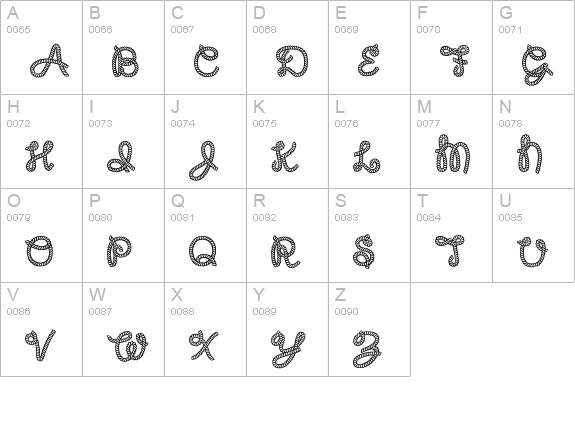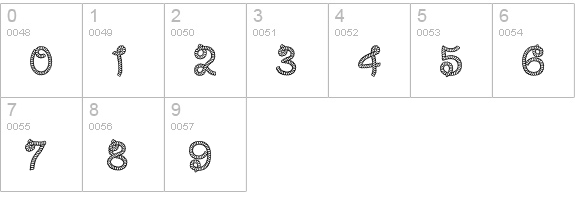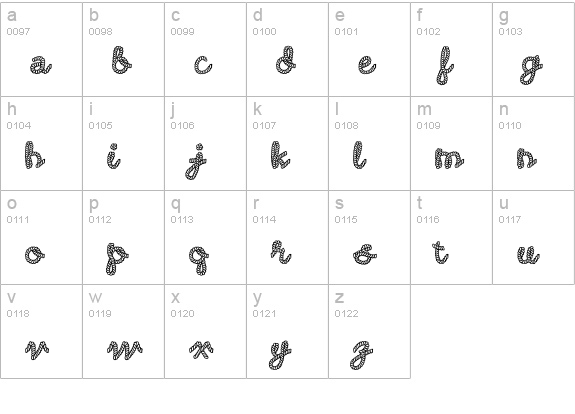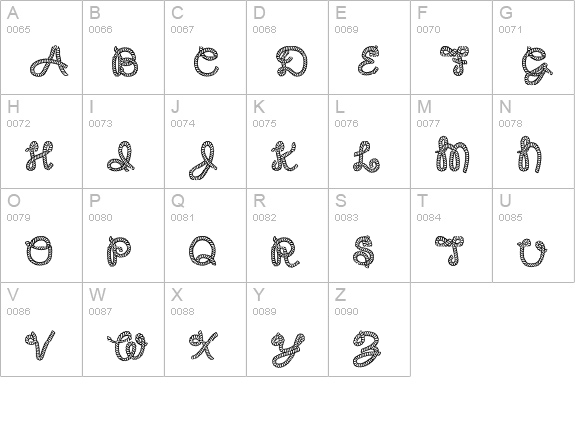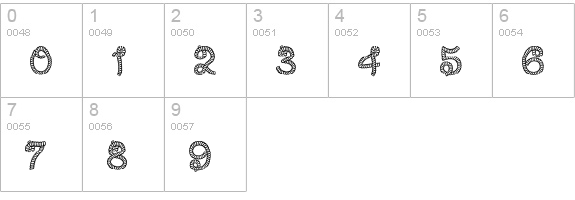
Rodeo Roundup Font Details
Introducing Rodeo Roundup font, a whimsical and playful typeface inspired by the thrilling world of rodeo. This unique font captures the essence of the Wild West with its bold and adventurous design, perfect for adding a touch of cowboy charm to your projects. Whether you're creating posters, invitations, or branding materials, Rodeo Roundup font is sure to make a statement. Best of all, Rodeo Roundup font is completely free to download at FontsMarket.com. Embrace your inner cowboy and saddle up with this one-of-a-kind typeface that will bring a sense of fun and excitement to your designs. Don't miss out on this fantastic opportunity to add a touch of rodeo flair to your next project with Rodeo Roundup font!